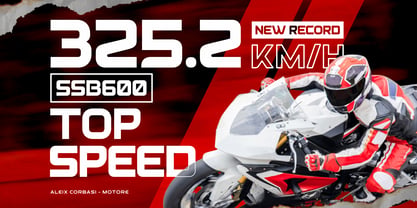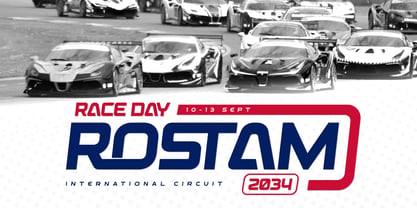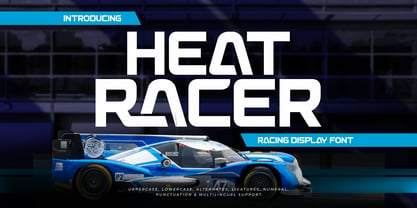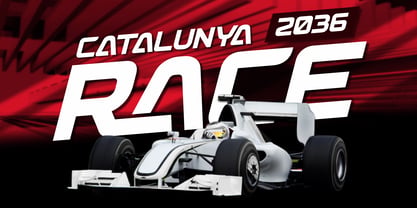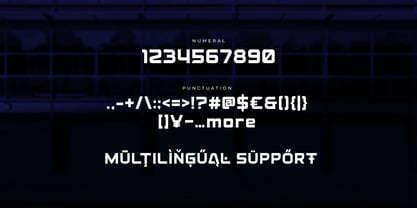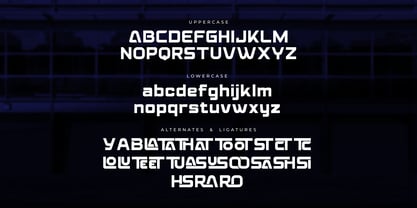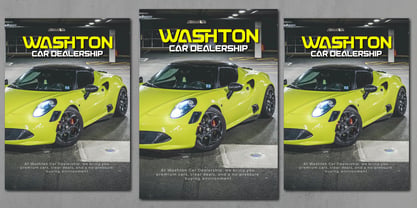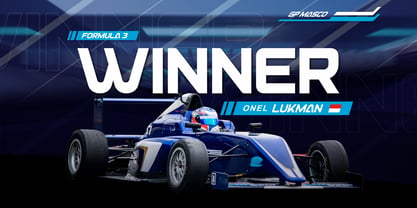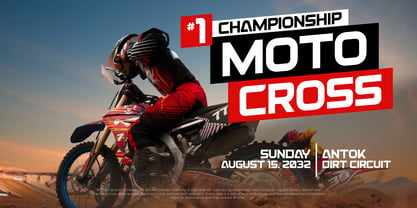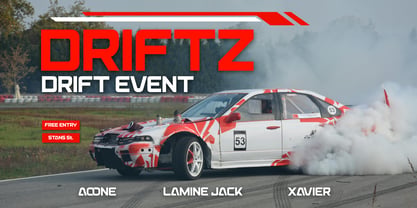
Heat Racer is an aggressive Racing Display Font typeface, inspired by high-speed machines and the thrilling intensity of motorsport competitions. Its sharp, aerodynamic letterforms are designed to deliver a modern, bold, and futuristic look. Every angle and diagonal cut clearly reflects fast motion and high-energy technology, making it an ideal choice for automotive branding and racing-themed designs.
This font is built with a strong and precise geometric Sans Serif structure, ensuring maximum visual impact at large display sizes. Included features are uppercase, lowercase, alternates, ligatures, numerals, and multilingual support, all working to enhance usability and professional appeal. With its organized and assertive styling, Heat Racer is perfectly suited for standout headlines, bodywork graphics, and racing event announcements.
Heat Racer brings a strong competitive atmosphere to both digital and print projects. It is ideal for automotive branding, racing event posters, F1 and superbike promotions, and speed-themed esports. For designers seeking aesthetics of performance, intensity, and extreme speed, this Futuristic Display font is the ultimate choice for creating an unforgettable and bold visual identity.